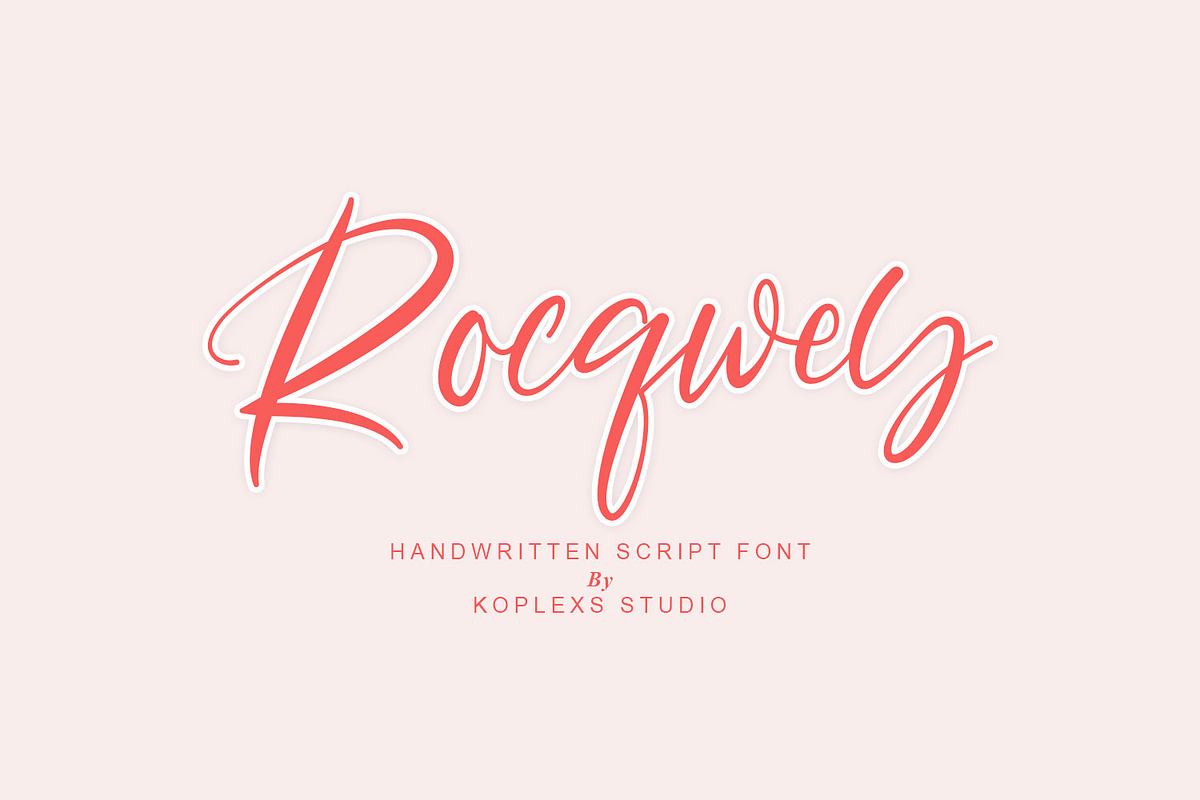
Rocqwey - Handwritten Sript Font Free Download
Rocqwey – Handwritten Script Font Free Download is a stylish and expressive script typeface that captures the fluidity and charm of natural handwriting. Perfect for logos, branding, invitations, social media, and lifestyle designs, Rocqwey adds a personal, elegant touch to any project. Please note that you must purchase this font for commercial use, but it is available as a free download for testing purposes. Enhance your creative work with the artistic flow of Rocqwey – Handwritten Script Font Free Download, and let your typography shine with authenticity and grace.